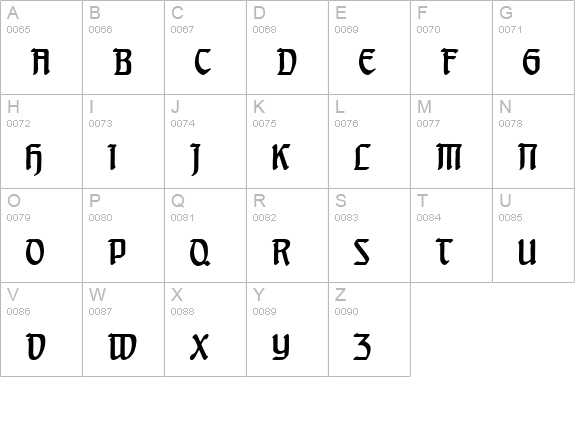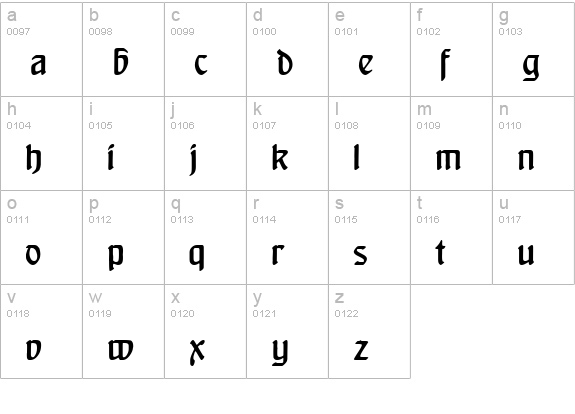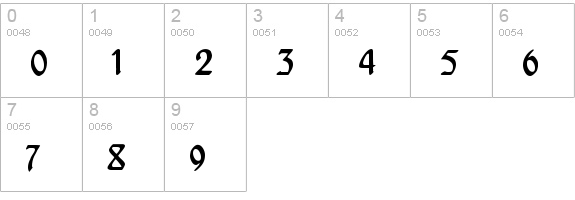
Heinrich Text Font Details
Heinrich Text font is a stunning typeface that exudes elegance and sophistication. Its timeless design and attention to detail make it the perfect choice for projects that require a touch of class. The refined serifs and graceful curves lend a sense of authority, while the slightly condensed letterforms ensure legibility in any setting. What sets Heinrich Text font apart is not only its impeccable design, but also the fact that it is available for free. That's right, this exquisite font can be downloaded at no cost from FontsMarket.com. Whether you're a professional designer or a casual user, you can now access this remarkable typeface without breaking the bank. With Heinrich Text font, your designs will instantly elevate to a new level of sophistication. It is ideal for a wide range of applications, including branding, packaging, editorial design, and more. Its versatility and timeless appeal make it a valuable asset for any project. The attention to detail in Heinrich Text font is evident in every character, from the delicate strokes to the carefully crafted ligatures. The result is a harmonious blend of beauty and functionality, allowing your text to effortlessly communicate its message. Whether you're working on a high-end fashion magazine, a luxury brand identity, or a prestigious event invitation, Heinrich Text font will bring a touch of refinement to your project. Its classic yet modern aesthetic will captivate your audience and leave a lasting impression. Don't miss out on the opportunity to enhance your designs with this exceptional font. Download Heinrich Text for free at FontsMarket.com and experience the beauty and versatility it has to offer.